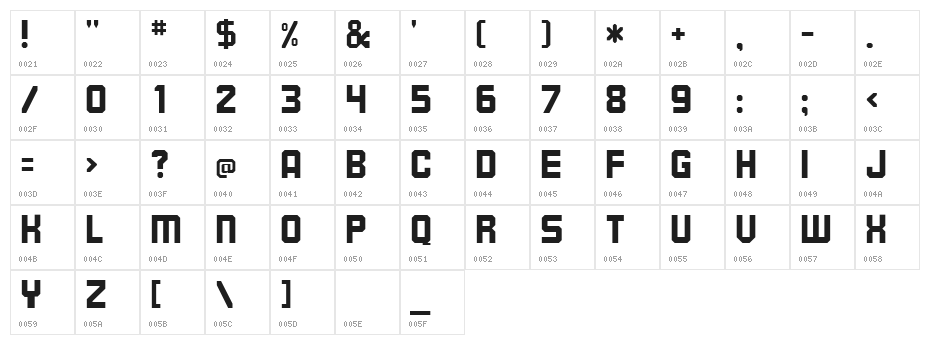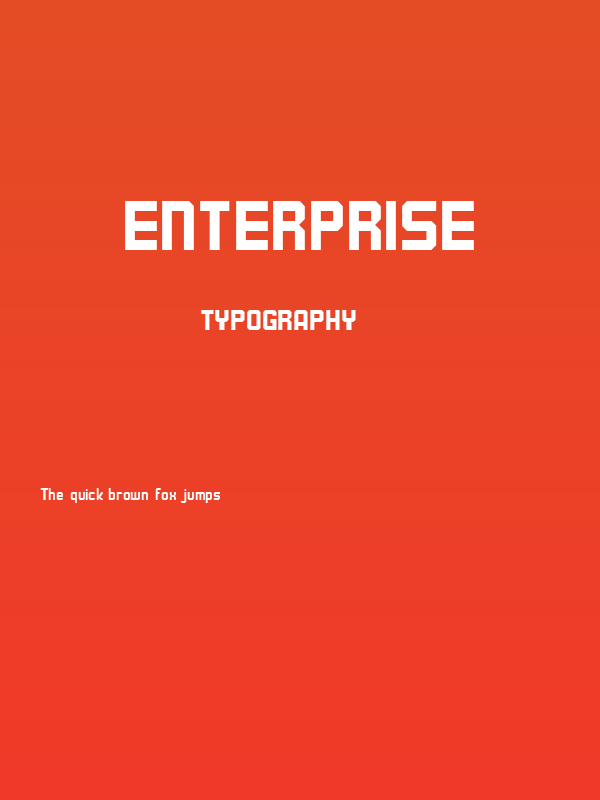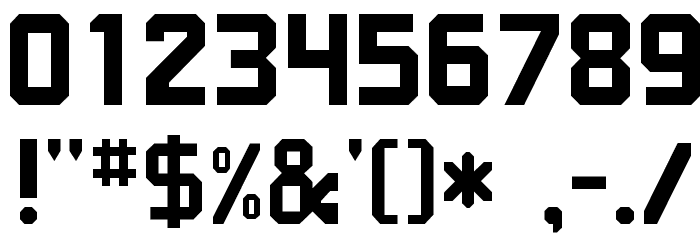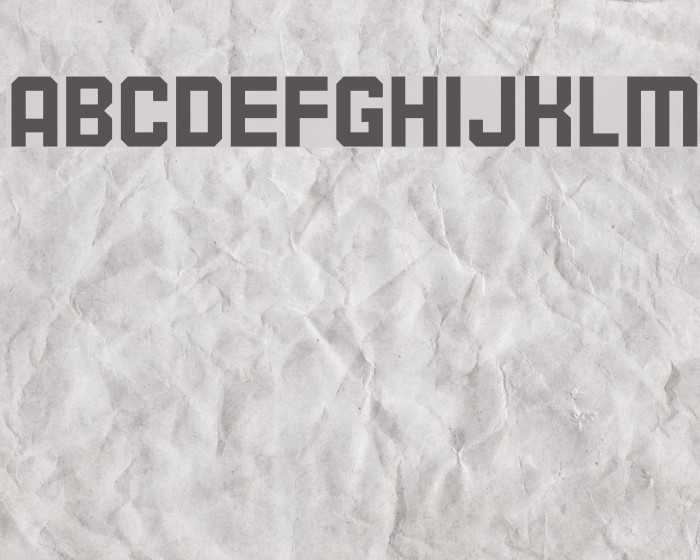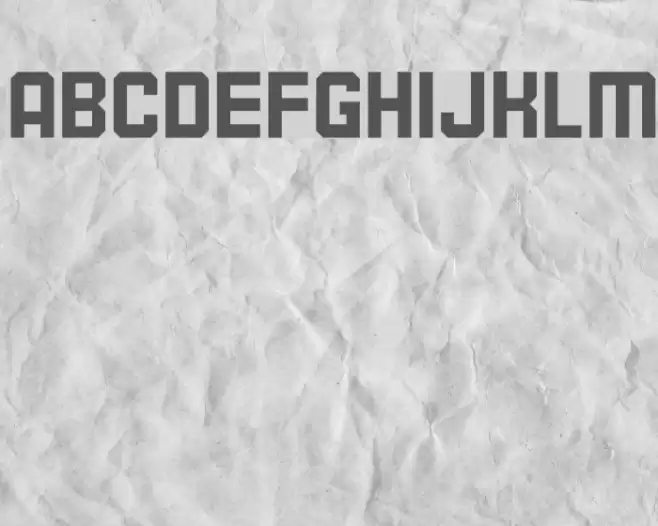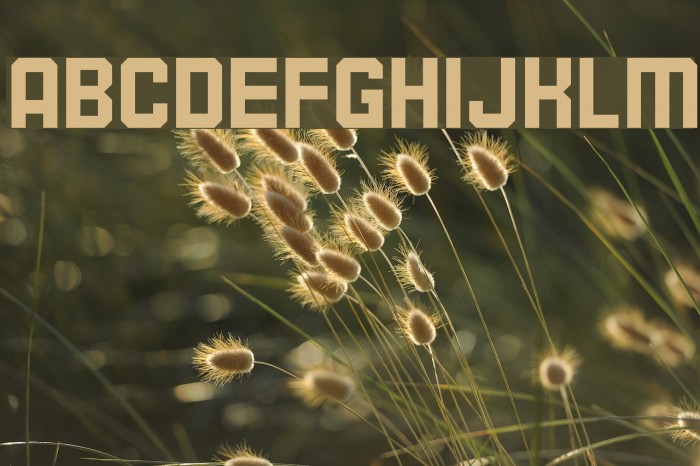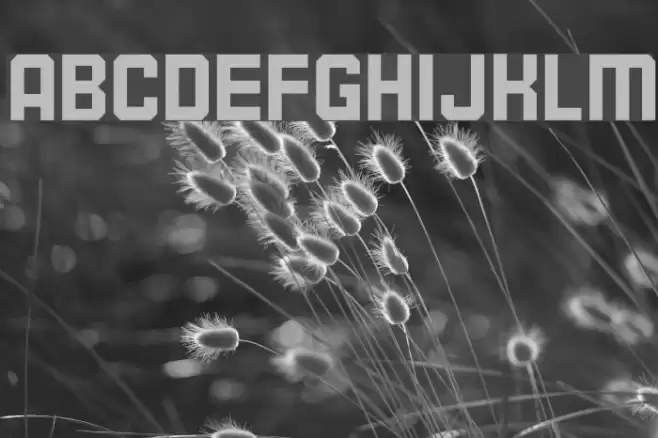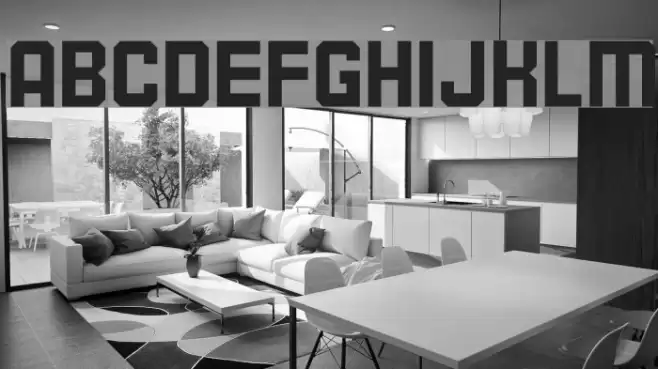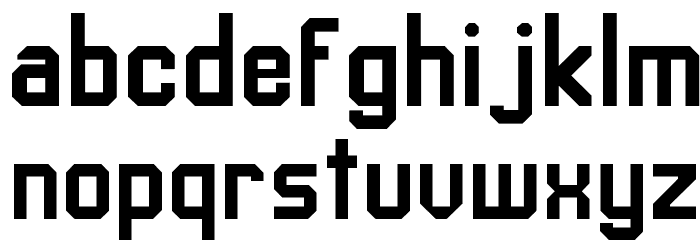
Enterprise Font
Enterprise Description
This font features a bold, geometric design with a strong, industrial feel. The characters are constructed with sharp angles and straight lines, giving it a modern and robust appearance. The uppercase and lowercase letters maintain a consistent height, while the numerals and special characters align seamlessly with the overall style. The font's design is reminiscent of digital or technological themes, making it suitable for projects that require a futuristic or high-tech aesthetic. Its boldness ensures high readability, even at smaller sizes.
| Proposed Projects | Ideal for technology branding, video game titles, futuristic posters, and digital interfaces. |